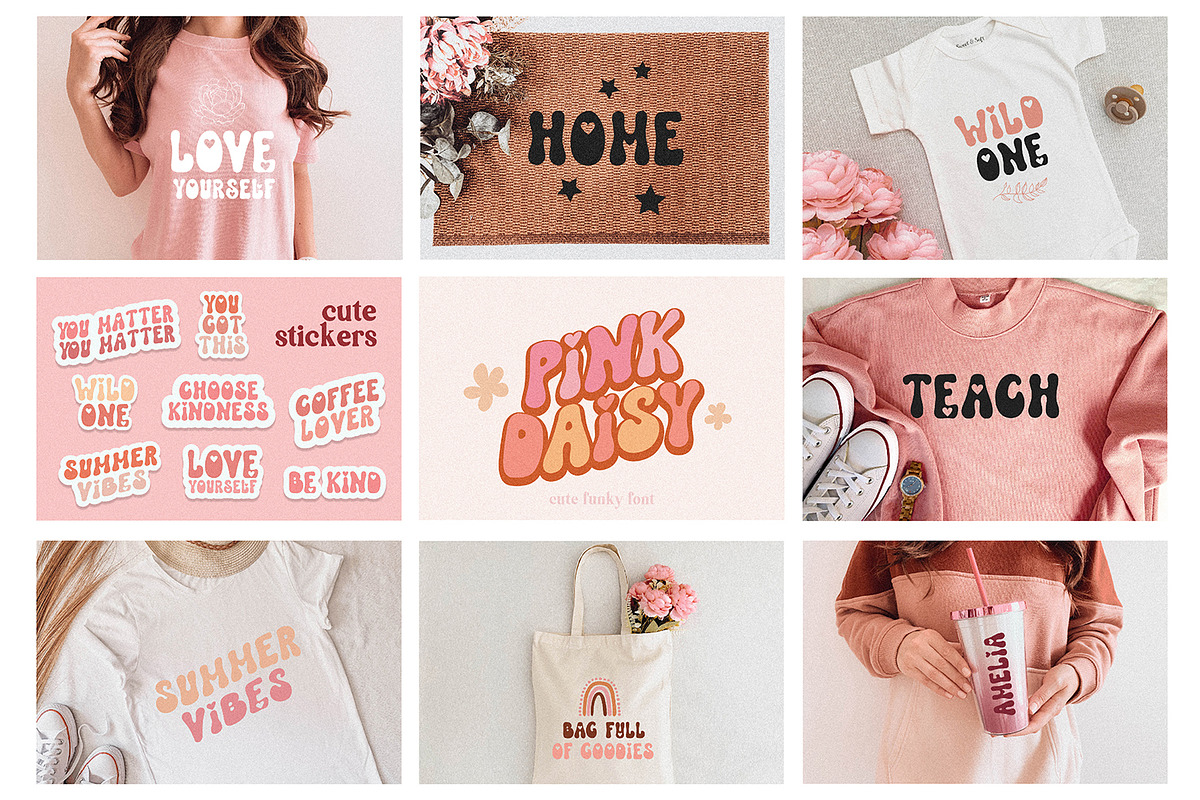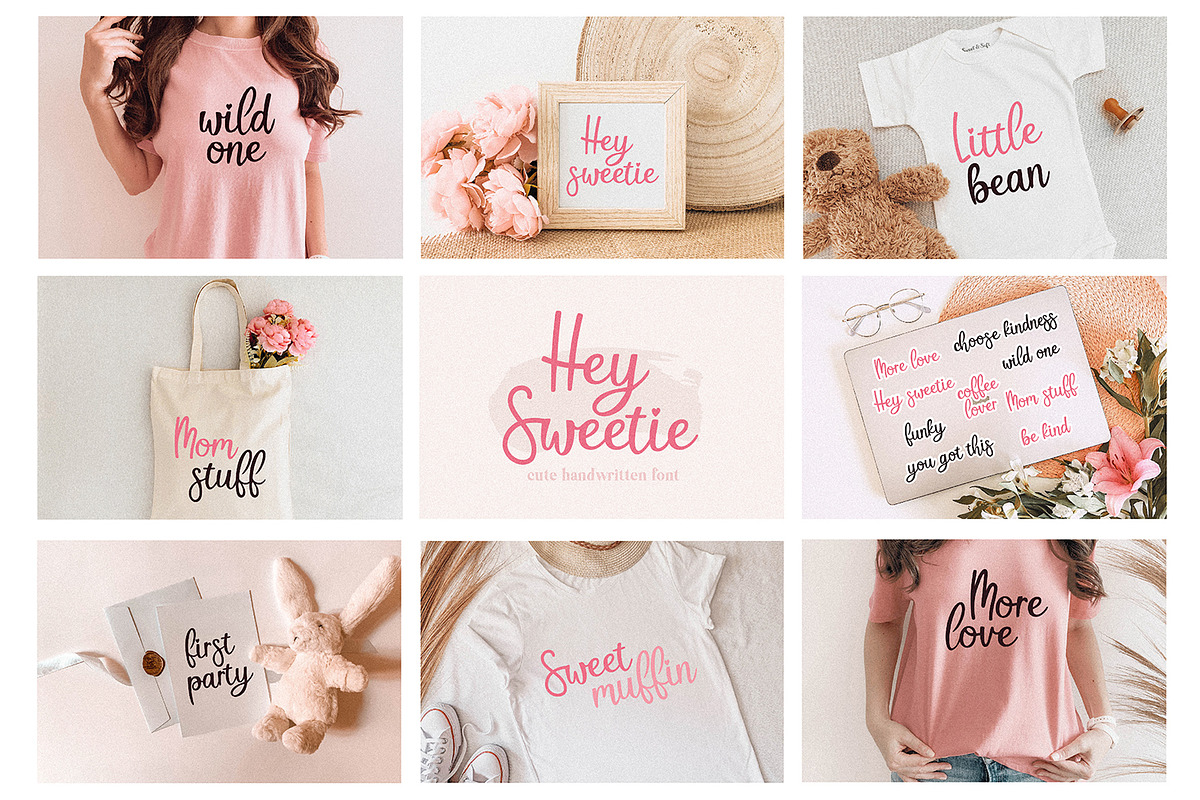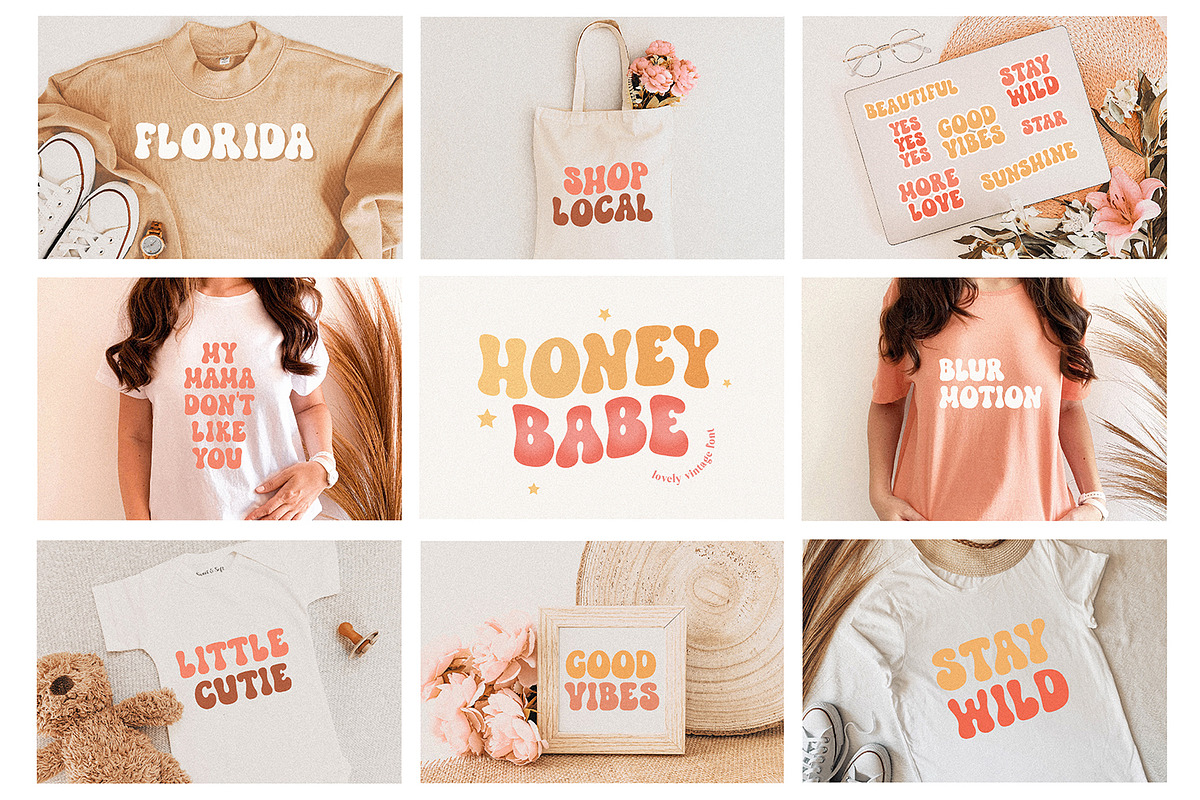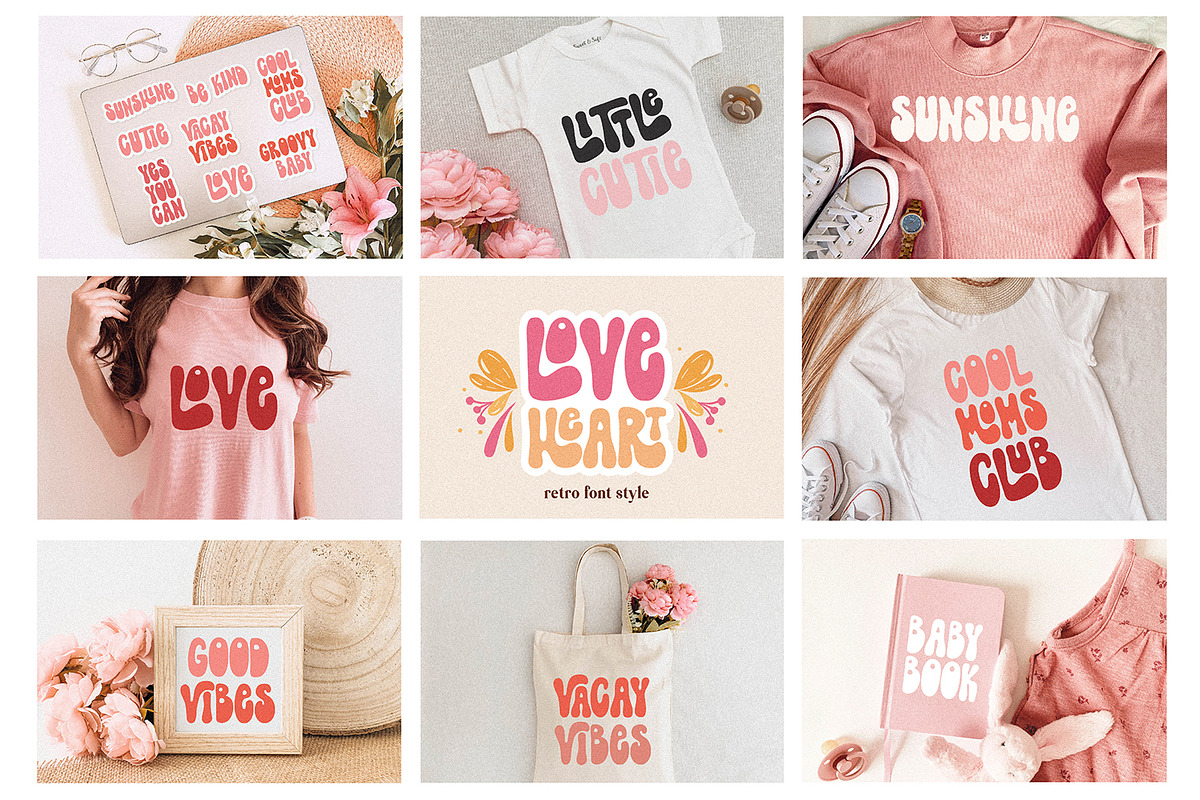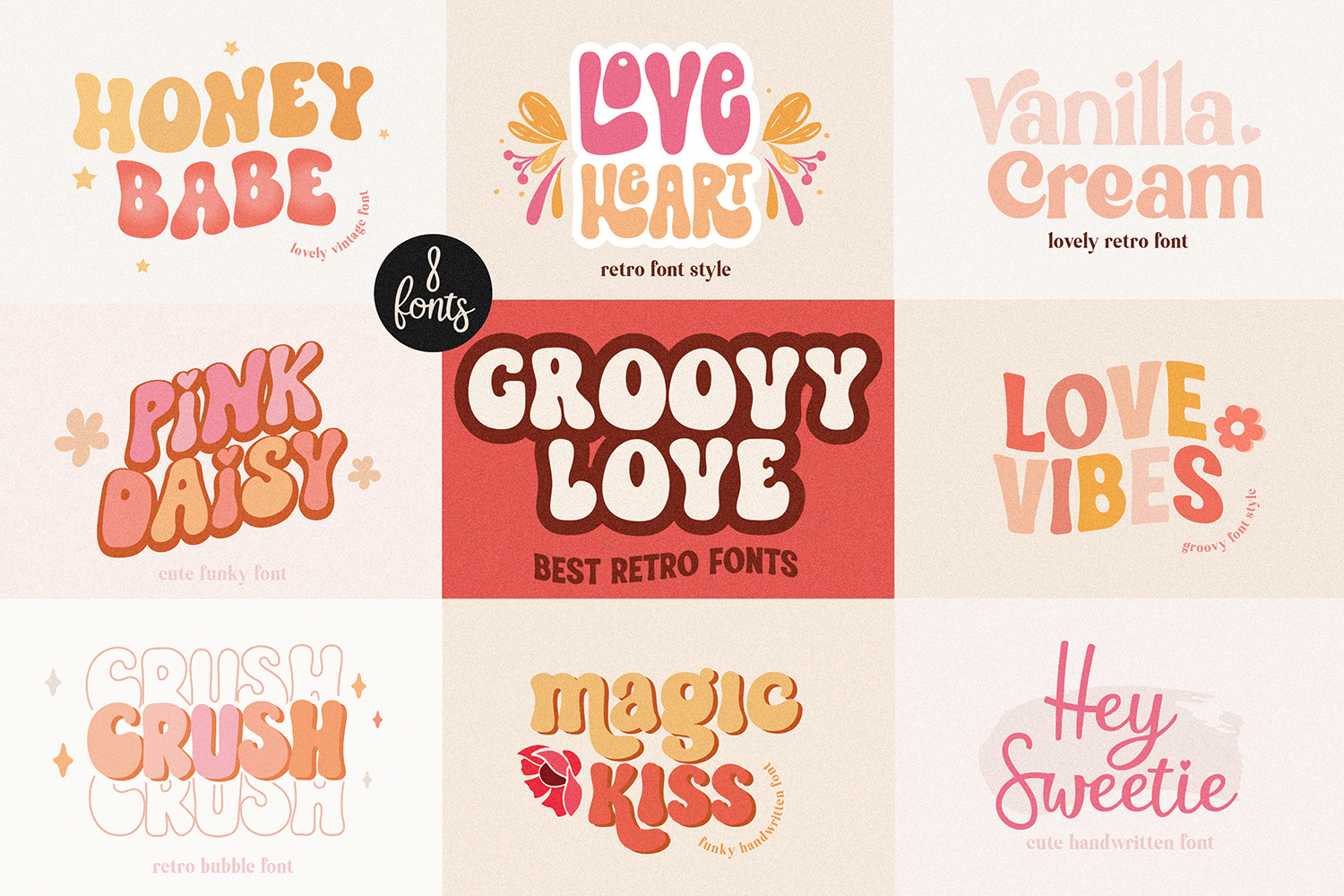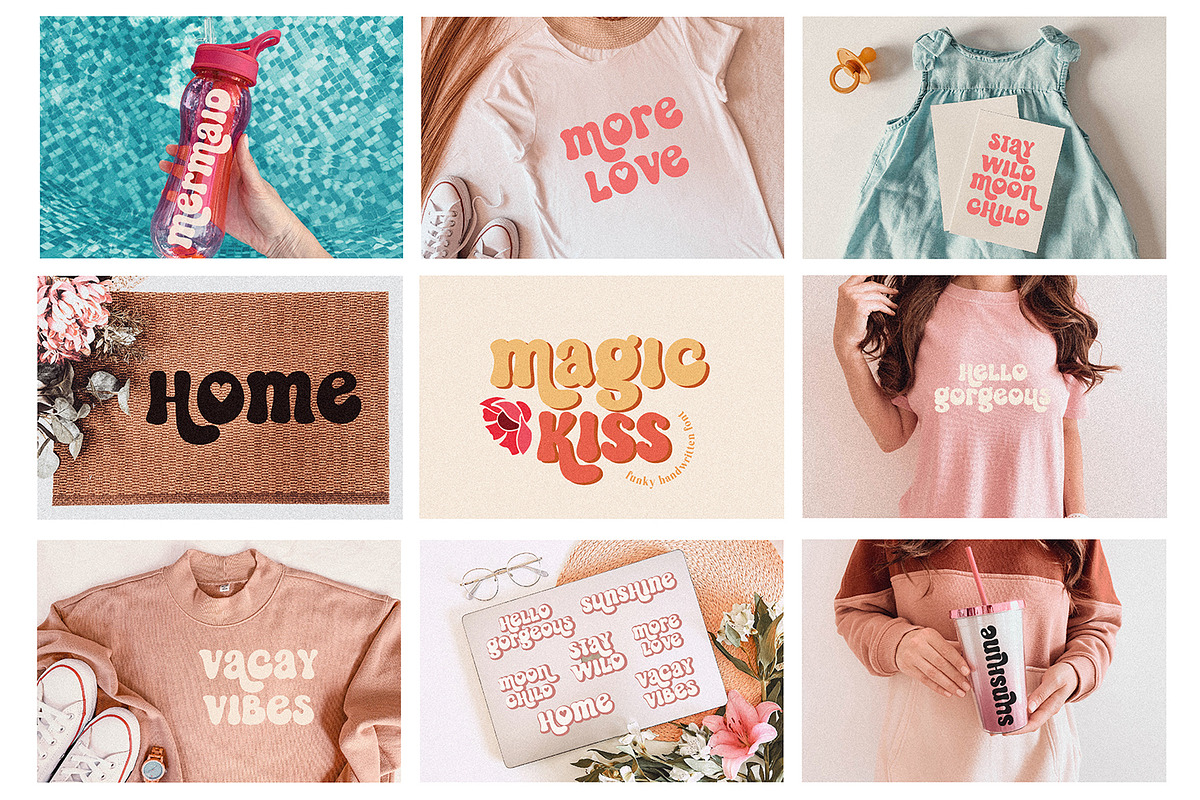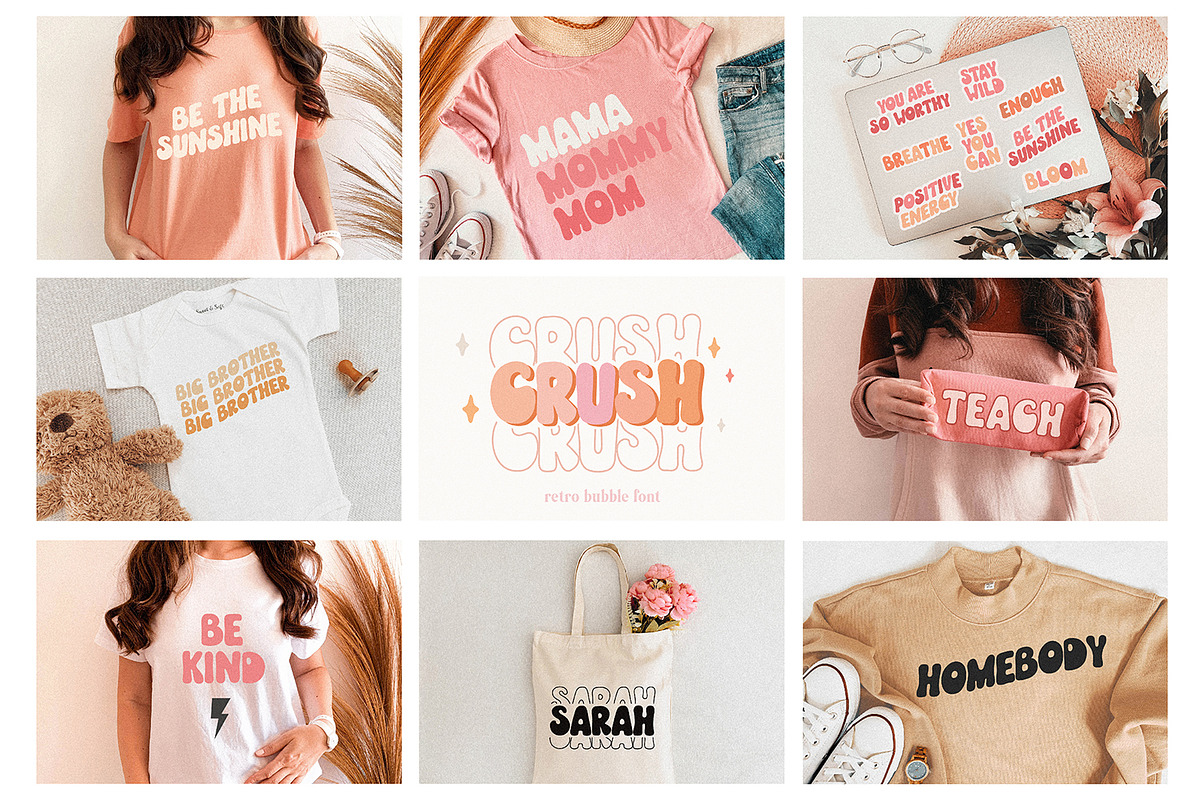
Groovy Bundle - 8 Retro Fonts
Groovy Love Bundle - 8 retro handwritten fonts for crafters and designers. Perfect to create stickers, quotes, t-shirt designs, mug designs, baby svg onesie projects, cricut projects, sublimation designs and svg files.
- Crush Font Duo
- Pink Daisy
- Honey Babe
- Love Heart
- Vanilla Cream
- Love Vibes
- Hey Sweetie
- Magic Kiss